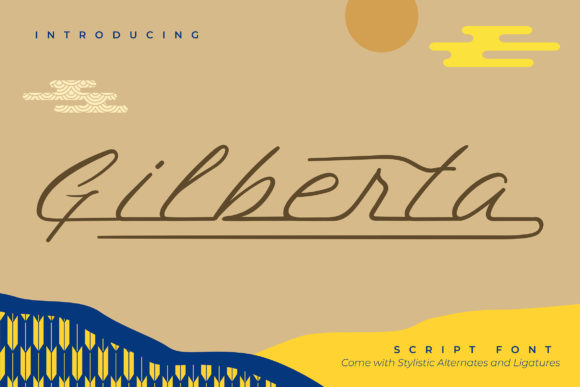
Ignite your creativity with Gilberta Font, the script font that dances across your designs with an enchanting aura. Its thin, quirky strokes weave a tale of elegance and individuality, leaving an unforgettable mark on your projects. Whether you're crafting book titles, designing wedding invitations, or adding a personal touch to your social media posts, Gilberta will elevate your words into works of art.
Step into a world where letters become characters, each stroke telling a story. Gilberta is not just a font; it's an experience that captivates the senses. Its delicate lines flow effortlessly, creating a captivating visual rhythm that draws the eye and leaves a lasting impression. Let your designs bloom with the charm and sophistication of Gilberta.
With Gilberta, you'll discover a font that's as versatile as your imagination. Its captivating style effortlessly complements a wide range of design projects, from book covers and posters to logos and branding materials. Whether you seek a whimsical touch or a touch of sophistication, Gilberta seamlessly adapts to your vision, adding a layer of intrigue and beauty.
As a creation of the renowned Vunira, Gilberta is a testament to the power of artistry and attention to detail. Each letterform has been carefully crafted to convey emotion, personality, and a sense of timeless elegance. It's a font that speaks to the heart, evoking a sense of wonder and inspiration.
Welcome to the world of Gilberta Font, where uniqueness thrives and creativity knows no bounds. Unleash the boundless possibilities that await you and transform your designs into captivating expressions of art. Embrace the allure of Gilberta and watch as your words take on a life of their own.